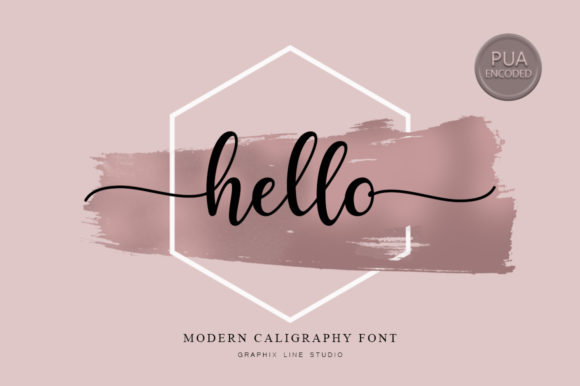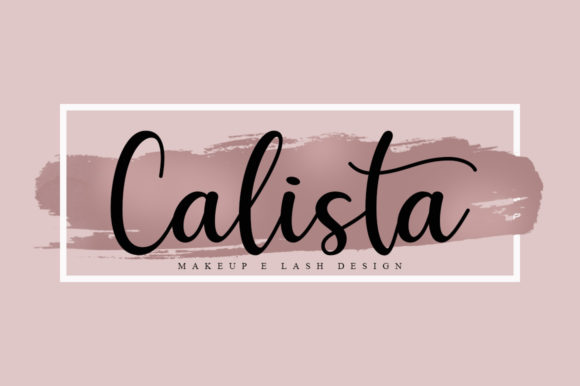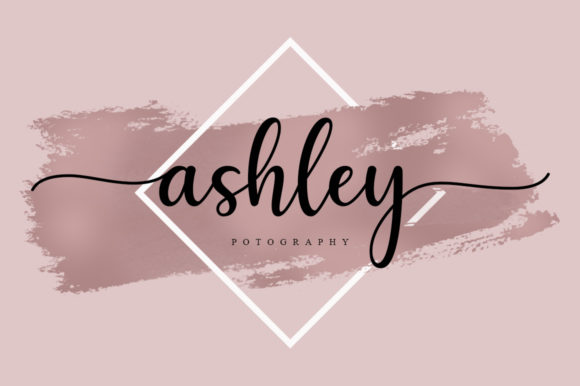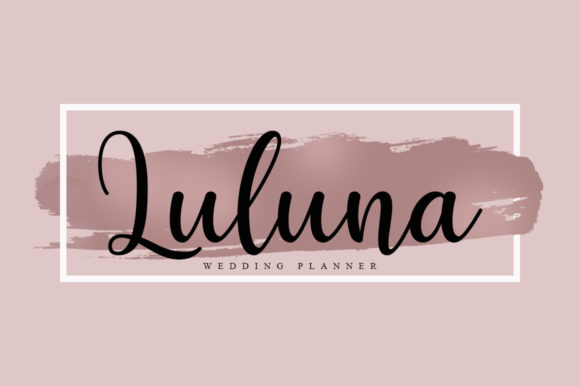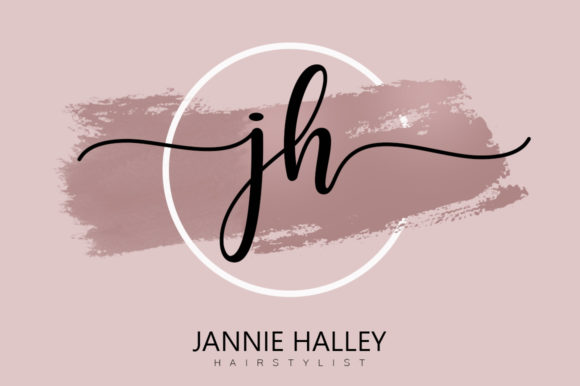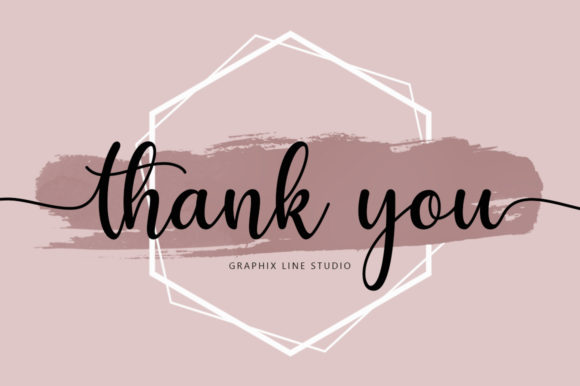
HomeScript FontsHello Font Script Fonts Hello Font FacebookTwitterPinterestWhatsApp Hello Font Poster 2 Hello Font Poster 3 Hello Font Poster 4 Hello Font Poster 5 Hello Font Poster 6 About Hello Font Hello is a friendly and fun script with smooth swashes. Get inspired by this compelling typeface! DOWNLOAD NOW People also explored Fosshira Script Font Rancoons Font Adolf Wolfett Font Halfway There Font Sunday Farmhouse Font Bathalyone Font Radio Classic Font Ocean Animal World Font Mount Font 145 0 TagsHello Font Previous articleTrinyta FontNext articleSalika Font LEAVE A REPLY Cancel reply Comment: Please enter your comment! Name:* Please enter your name here Email:* You have entered an incorrect email address! Please enter your email address here Website: Save my name, email, and website in this browser for the next time I comment. Personal Use Free Peristiwa Font Personal Use Free Read more about this font Ancient Script Personal Use Free Read more about this font Black Friday Personal Use Free Read more about this font Critical Personal Use Free Read more about this font BLOG Free vs Paid Fonts: Why Investing in Premium Fonts Is Worth It Free vs Paid Fonts: Why Premium Fonts Are Worth It in 2025 The debate of free vs paid fonts continues in the design world. While... Exploring Font Trends Transform Your Website: Elevate Your Typography with 7 Best Web Font Generators Using Fonts in Digital Marketing: Tips to Strengthen Your Brand Identity